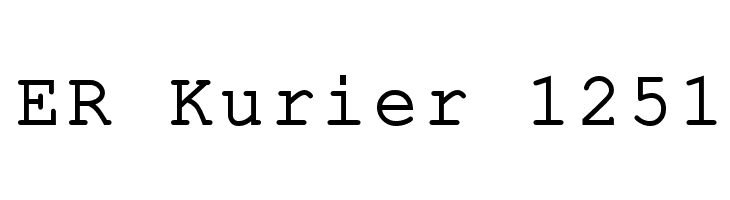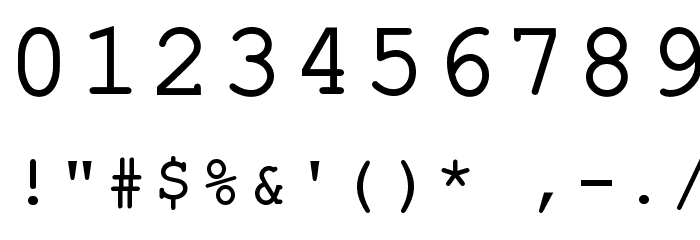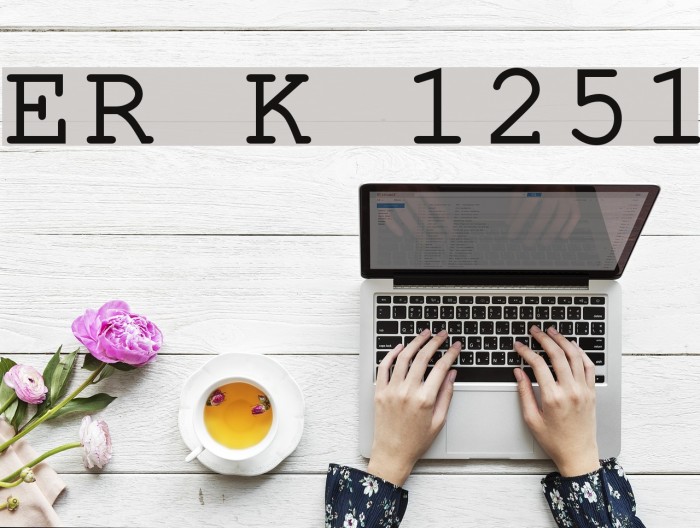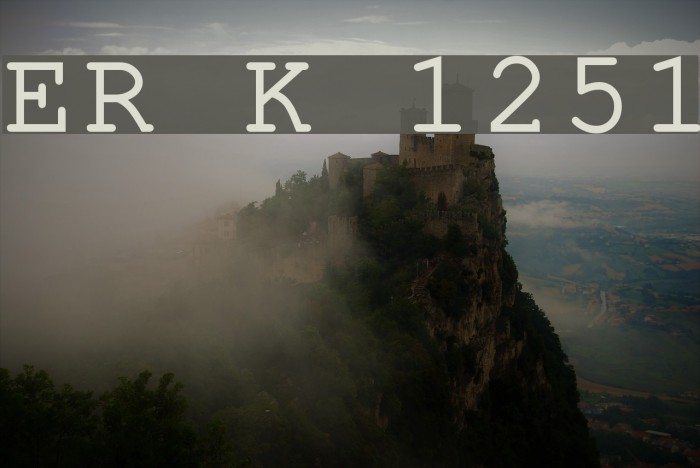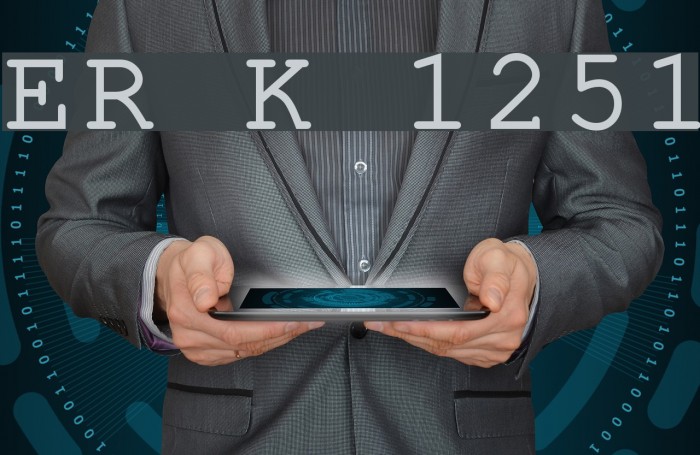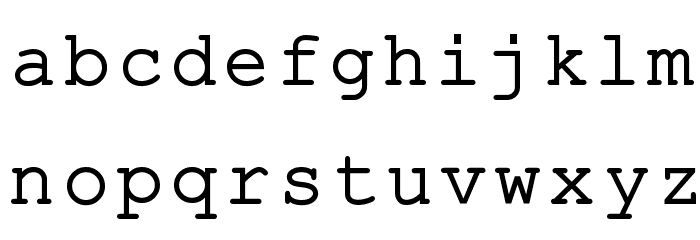
ER Kurier 1251 Font
ER Kurier 1251 Description
This font features a classic monospaced style with a clean and structured appearance. Each character is evenly spaced, providing a uniform and orderly look. The uppercase letters are bold and prominent, while the lowercase letters maintain a consistent height and width, ensuring readability. The numerals are clear and distinct, making them suitable for data presentation. Special characters are well-defined, adding versatility to the font. The overall design is reminiscent of typewriter fonts, offering a vintage yet functional aesthetic.
A classic monospaced font with a vintage typewriter style from Typewriter fonts.
- Proposed Projects: Ideal for coding environments, technical documents, retro-themed designs, and any project requiring a structured and uniform text appearance.
- Overall Style: Vintage
- Use Case: Coding, Technical documents, Retro designs